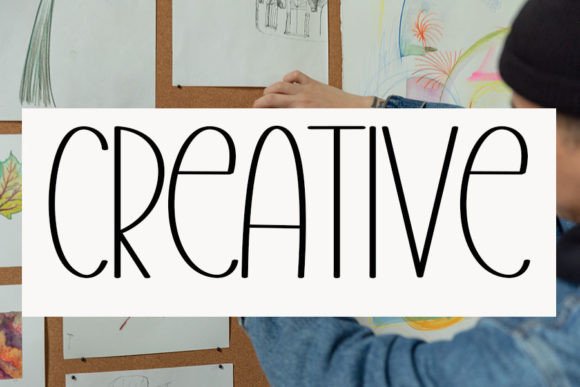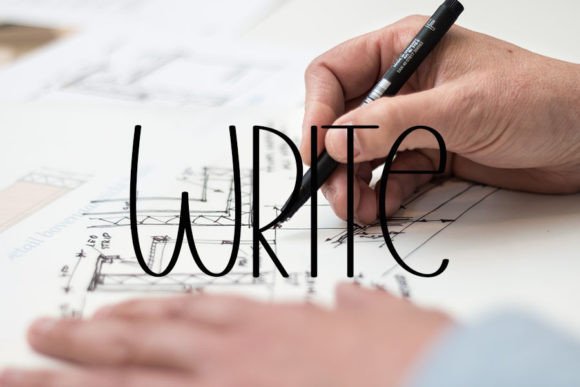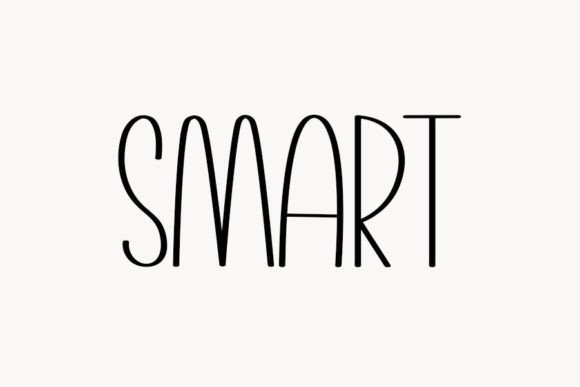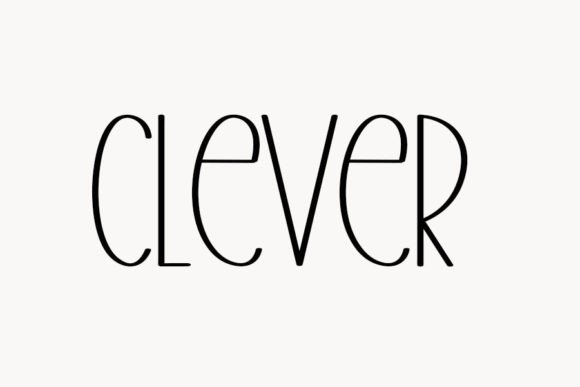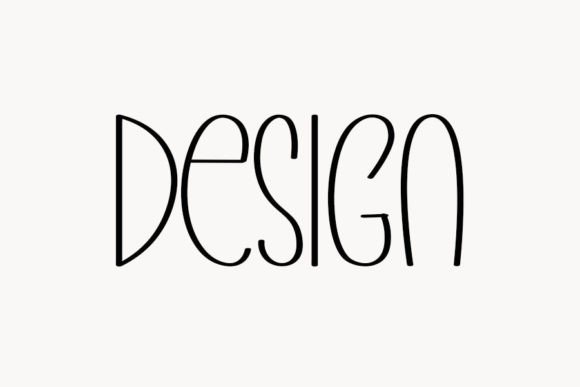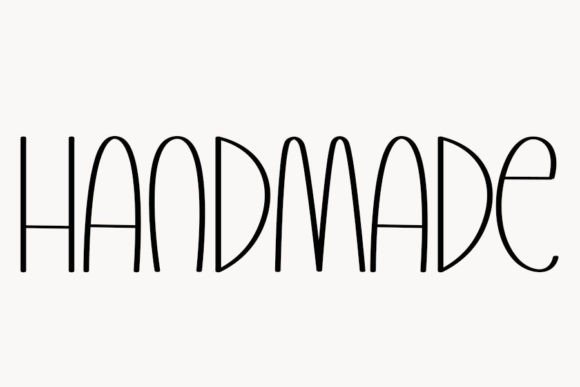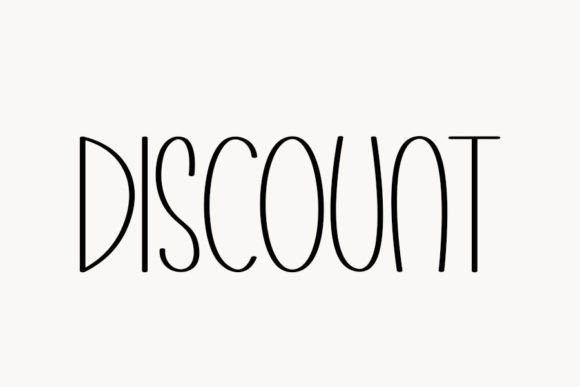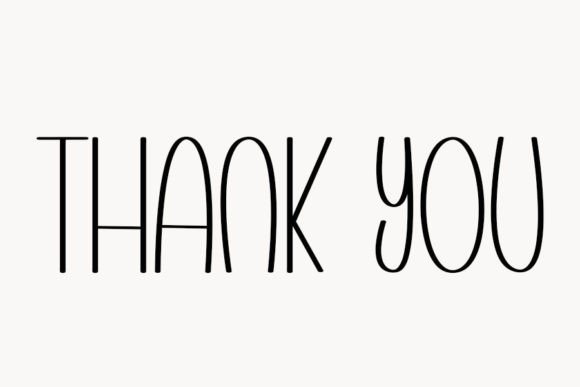
Thinking Font
Add Elegance and Charm with Thinking Font
Thinking Font is a neat and beautiful handwritten typeface designed to bring an elegant touch to your favorite projects. Its timeless and distinct style makes it perfect for a variety of designs. Whether you’re creating invitations, branding materials, or social media content, Thinking Font adds a polished and refined look.
Moreover, the font’s graceful strokes and balanced design give your work a classic yet fresh feel, ensuring your projects stand out beautifully.
Versatile Uses for Thinking Font
ThinkingFont works well in many different design projects, including:
• Wedding and event invitations
• Brand logos and corporate identities
• Social media posts and digital content
• Posters, flyers, and promotional materials
• Product packaging and labels
Thanks to its elegant handwritten style, ThinkingFont adds warmth and sophistication to both formal and casual designs.
It also features well-spaced letters and optimized kerning to keep your text readable and visually appealing across different sizes and formats.
Why Designers Choose Thinking Font
Designers and creatives appreciate ThinkingFont for its elegant and timeless handwriting style. It adds a personal and professional touch that enhances the beauty of any project. Whether you are a professional or hobbyist, ThinkingFont is a versatile and lovely choice for your typography needs.
Use ThinkingFont to bring charm and style to your next creative design.